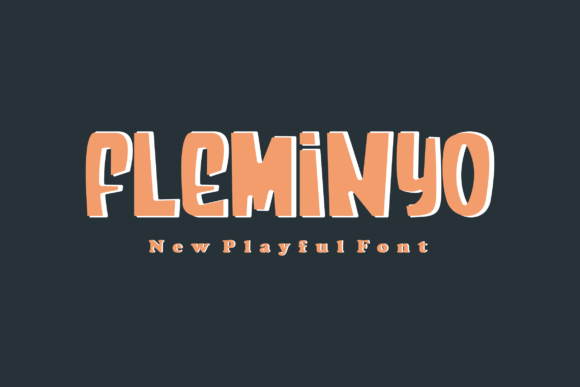
Step into the world of typography and discover Fleminyo Font, the captivating display font that exudes elegance and sophistication. This modern masterpiece is designed to elevate your creative projects with its bold and classy aesthetic. From signatures and stationery to logos and wedding invitations, Fleminyo is the perfect choice for adding a touch of timeless beauty to your designs.
Unleash your creativity with Fleminyo's versatile character set, perfect for a wide range of projects. Whether you're designing a magazine or book cover, crafting website headers, or creating eye-catching branding and packaging, Fleminyo will effortlessly elevate your designs. Its striking presence will leave a lasting impression, making your creations stand out from the crowd.
Experience the beauty of Fleminyo's narrow text capabilities, allowing you to create captivating headlines, titles, and quotes that demand attention. Its carefully crafted letterforms ensure optimal readability, even in constrained spaces, making it an ideal choice for logos, social media graphics, and other digital applications.
With Fleminyo, you'll have the power to transform your ordinary designs into extraordinary works of art. Its versatility and timeless appeal make it a must-have for any designer looking to create truly unforgettable creations. Embrace the elegance of Fleminyo and unlock a world of creative possibilities.
**Fleminyo Font: The Epitome of Grace and Sophistication**
Fleminyo is more than just a font; it's an experience. Immerse yourself in its beauty and discover a world where creativity knows no bounds. Its bold and classy design will effortlessly elevate your projects, leaving a lasting impression on your audience.
**Features that Make Fleminyo Truly Exceptional:**
* **Bold and Classy Aesthetic:** Fleminyo's carefully crafted letterforms exude elegance and sophistication, adding a touch of timeless beauty to your designs.
* **Versatile Character Set:** Unleash your creativity with Fleminyo's extensive character set, perfect for a wide range of projects, from branding and packaging to website headers and social media graphics.
* **Optimal Readability:** Experience the joy of effortless reading with Fleminyo's narrow text capabilities. Its optimized letterforms ensure clarity and legibility, even in constrained spaces.
* **Unforgettable Impressions:** Create designs that leave a lasting impact with Fleminyo's striking presence. Its bold and elegant style will captivate your audience and make your creations truly unforgettable.
**Fleminyo: The Perfect Choice for Designers of All Levels**
Whether you're a seasoned designer or just starting out, Fleminyo is the perfect choice for you. Its user-friendly design and extensive features make it easy to create stunning designs, even for beginners. And with its versatility, you'll have the power to tackle any creative challenge that comes your way.
**Elevate Your Designs with Fleminyo Today!**
Don't settle for ordinary fonts that blend in with the crowd. Choose Fleminyo and unlock a world of creative possibilities. Experience the beauty, elegance, and sophistication that Fleminyo brings to your designs.